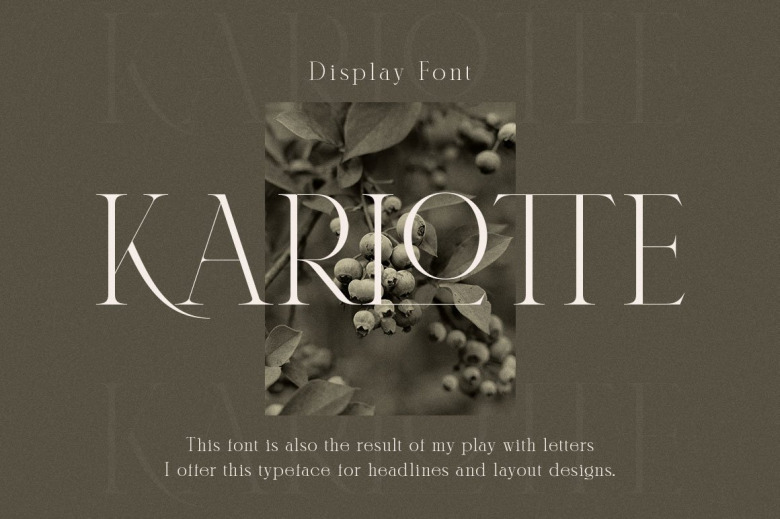
Karlotte Font
Karlotte Font this is an elegant modern serif font with a romantic feel to every curve on the serifs and long way to add smooth edge that way there is no pointy serifs. from our font library, Karlotte Font comes with ligatures included 46!, which can help in creating the title of any of your projects: fashion, magazines, logos, branding, photography, invitations, wedding invitation, quotes, blog header, poster, advertisements, postcard, book, websites and much more!
Karlotte Serif Font